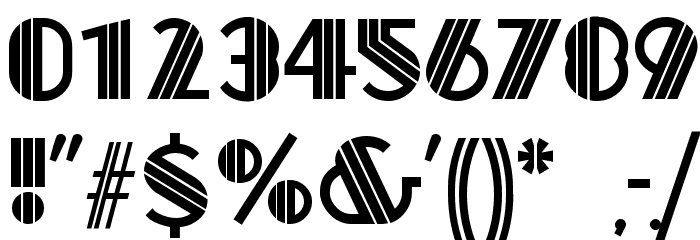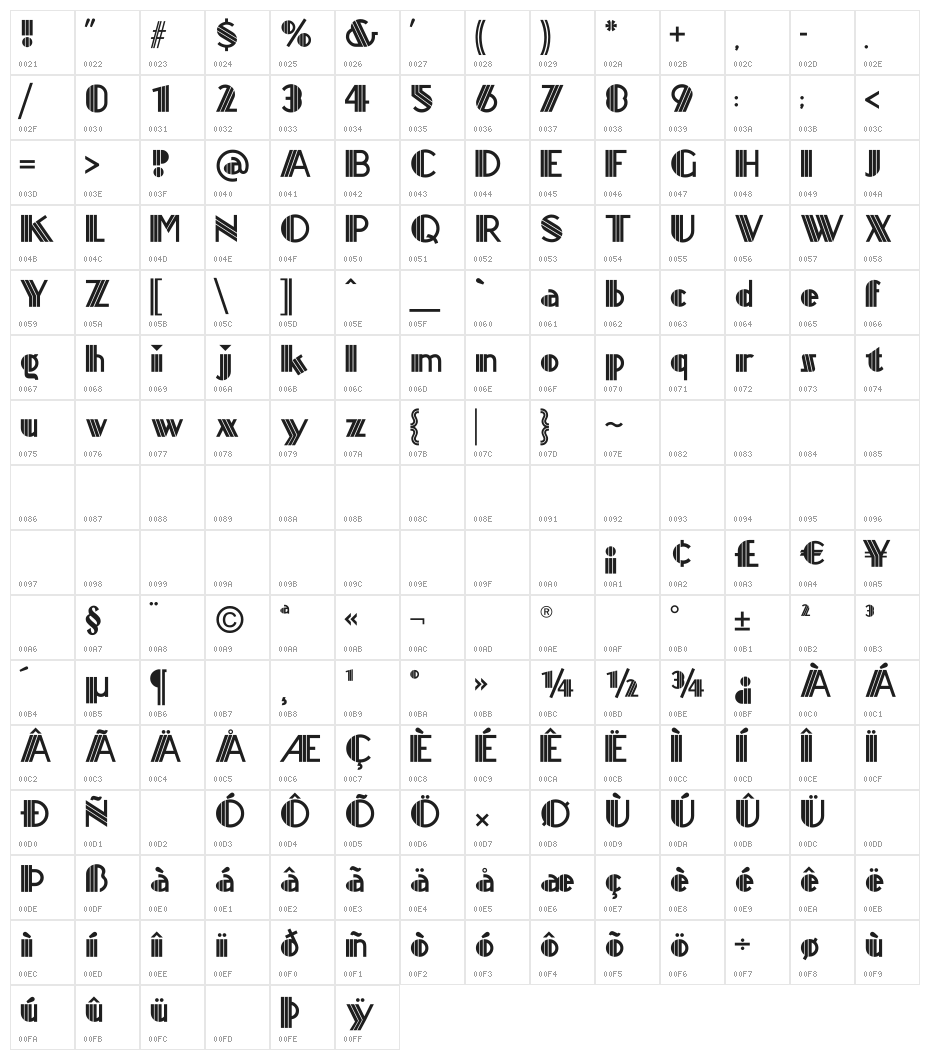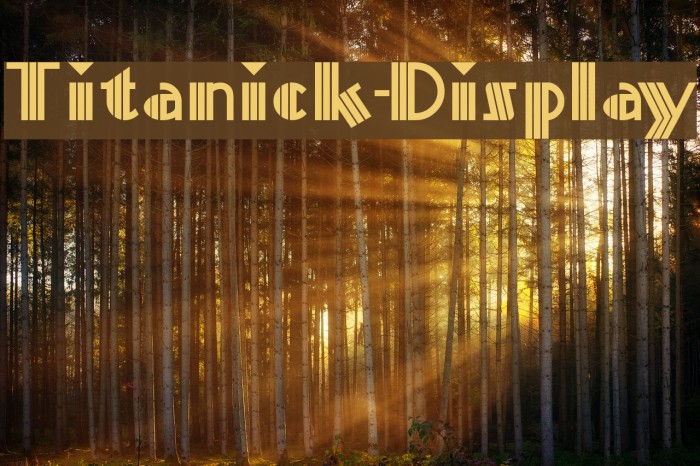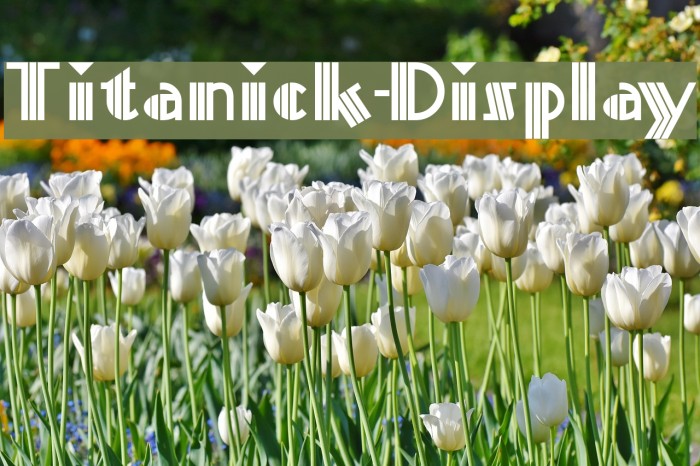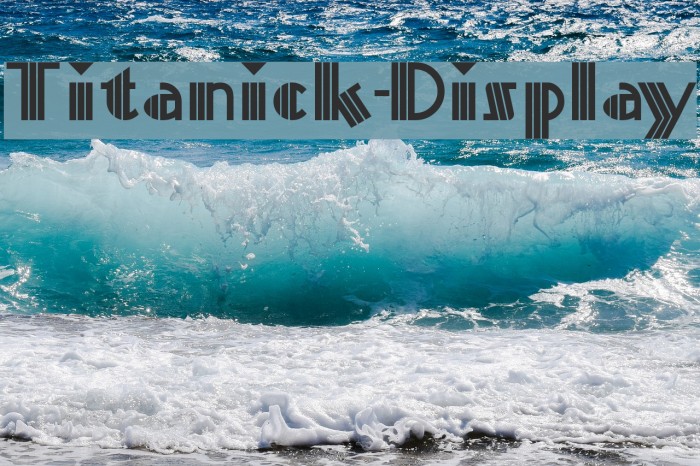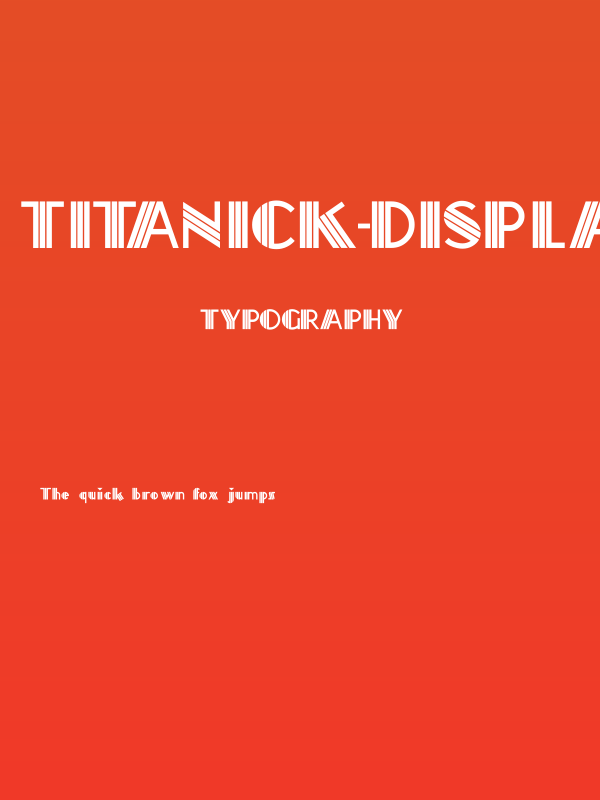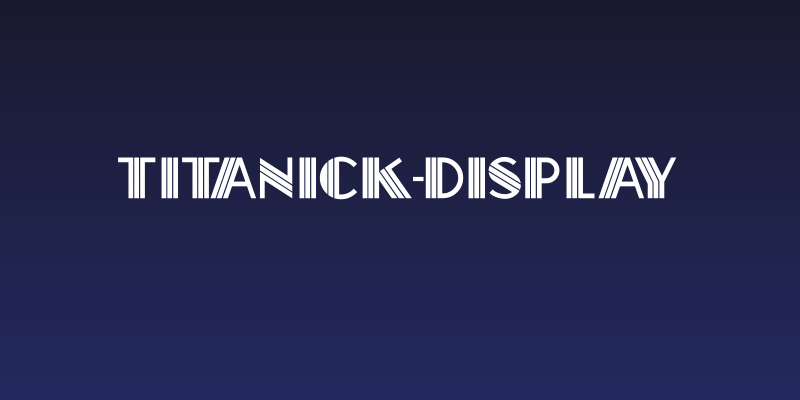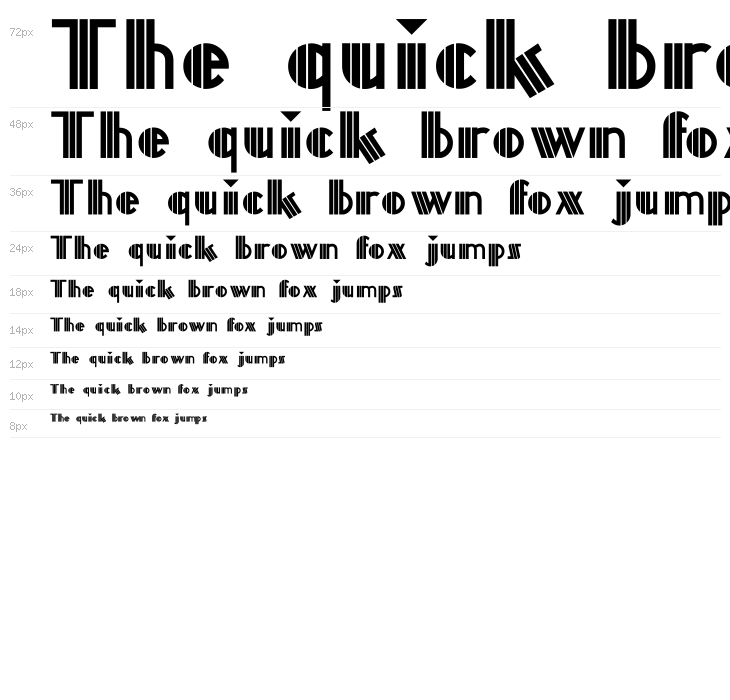
Titanick-Display Font
Titanick-Display Description
This font features a bold and striking design with a modern, geometric style. The characters are constructed with thick vertical lines and sharp angles, creating a sense of movement and energy. The uppercase letters are particularly prominent, with a strong presence that commands attention. The lowercase letters maintain the same geometric aesthetic, offering a cohesive look across the typeface. Numbers and special characters are equally bold, ensuring consistency throughout. This font's unique design makes it ideal for projects that require a contemporary and eye-catching typeface.
| Proposed Projects | Ideal for modern branding, poster design, and headlines that require a striking visual impact. |